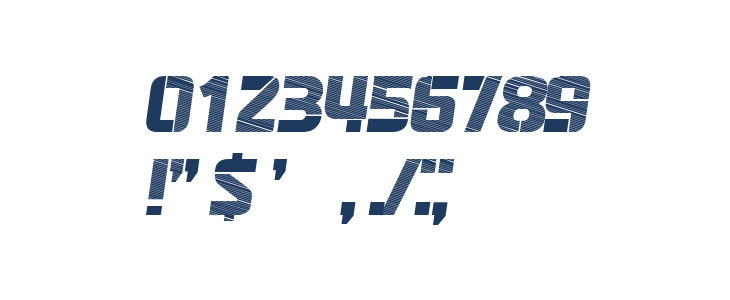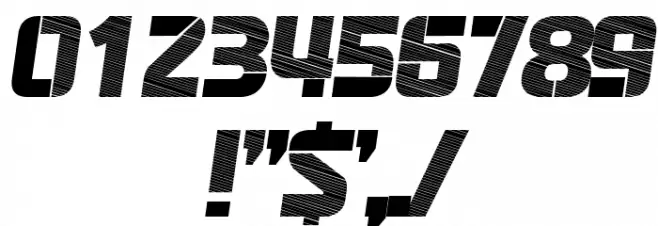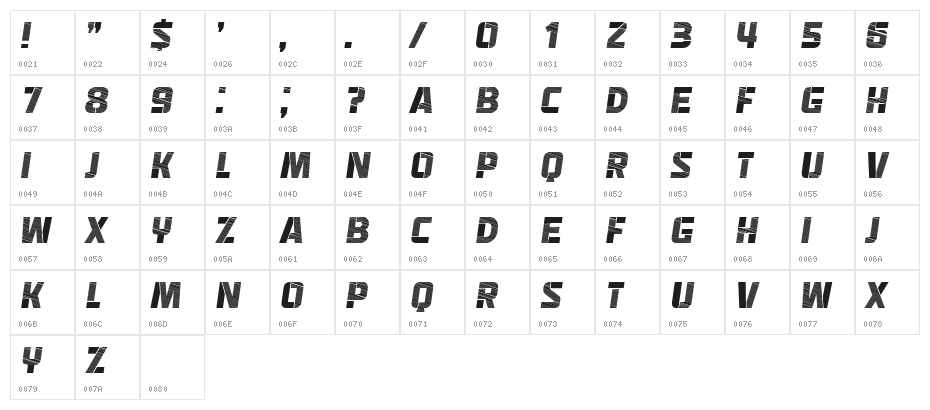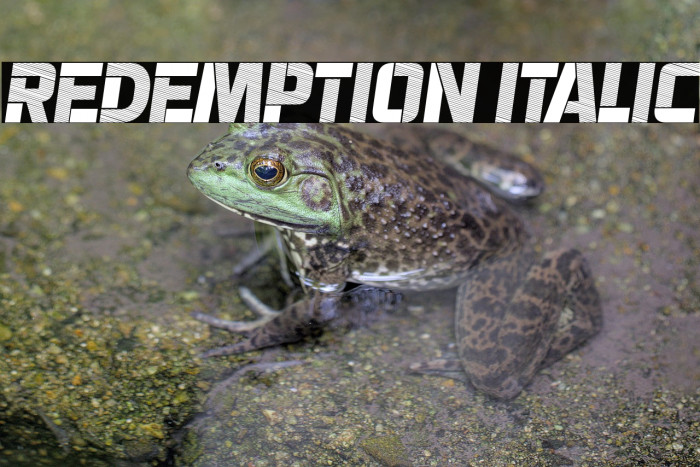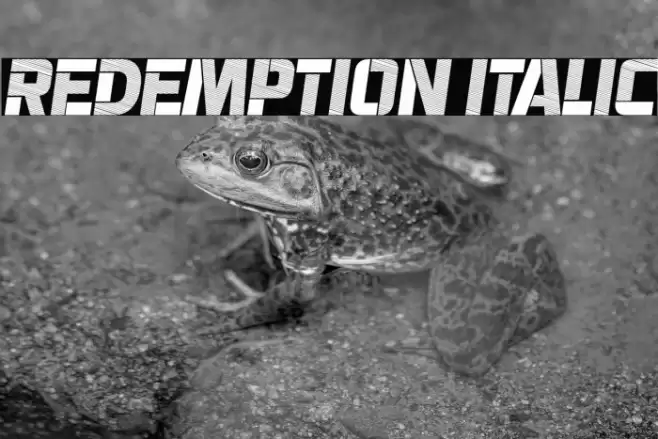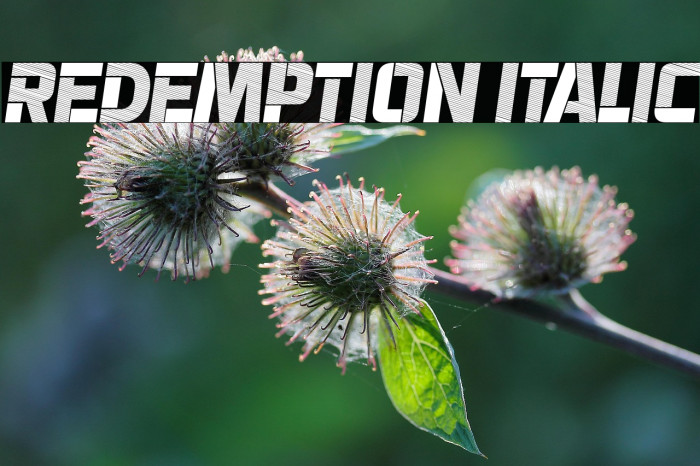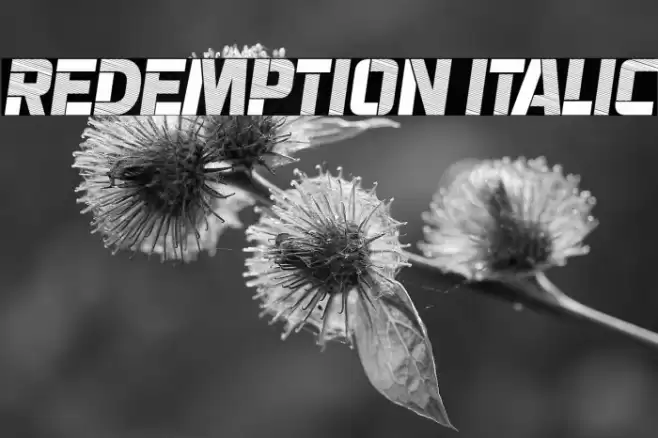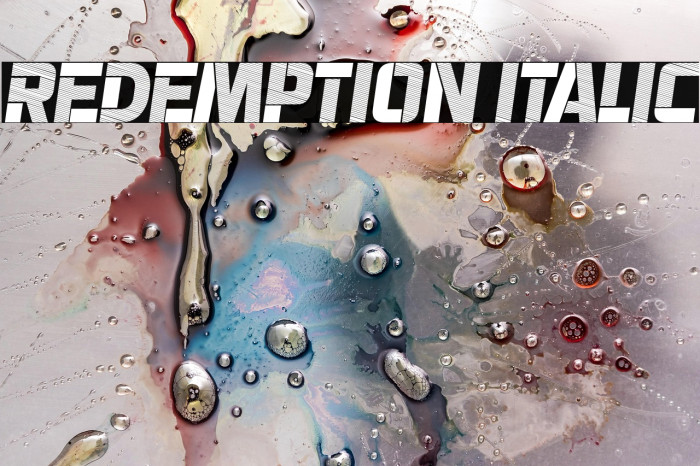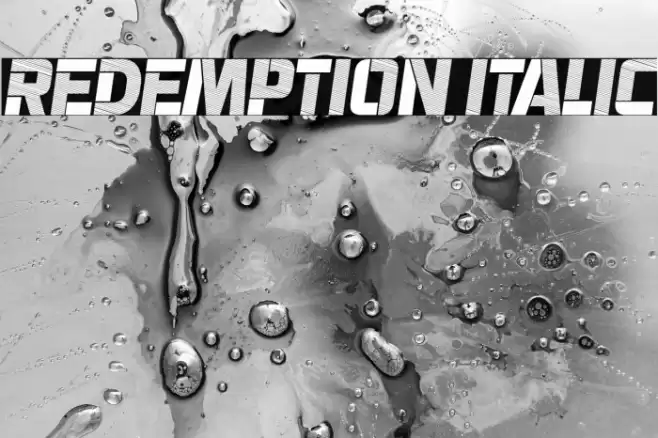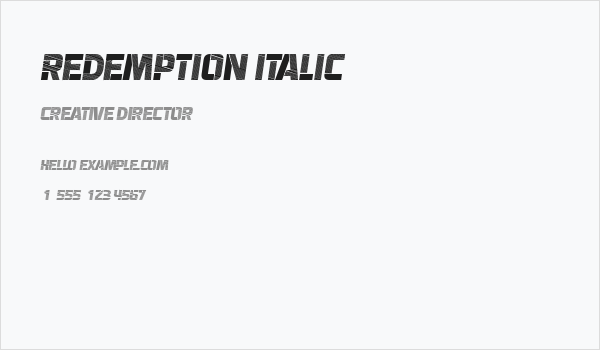
Redemption Italic Font
Redemption Italic Description
This font features a bold and dynamic design with a distinct italic slant, giving it a sense of motion and energy. The characters are constructed with a solid, block-like appearance, enhanced by diagonal lines that add texture and depth. This creates a striking visual effect, making it ideal for attention-grabbing headlines or branding. The uppercase and lowercase letters maintain a consistent style, while the numerals and special characters complement the overall aesthetic. The font's unique style is both modern and edgy, suitable for projects that require a bold statement.
Proposed ProjectsIdeal for sports branding, dynamic posters, edgy advertisements, and modern web design.